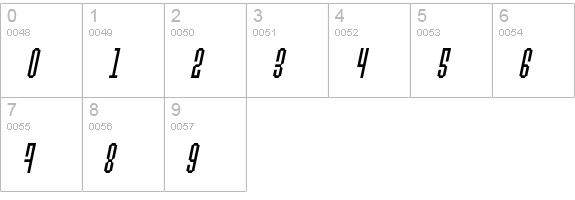
Permanent daylight Italic Font Details
Permanent daylight Italic is a distinctive, italic variant in the Permanent typeface family \xE2\x80\x94 well suited to design and typography projects.
Introducing Permanent Daylight Italic font, a captivating and stylish typeface that will illuminate your designs with its timeless elegance. This font effortlessly combines the beauty of traditional letterforms with a modern twist, making it perfect for a wide range of creative projects. With its slanted and italicized characters, Permanent Daylight Italic exudes a sense of sophistication and flair. Its sleek curves and delicate strokes create a harmonious balance, adding a touch of refinement to any design. Whether you're designing a logo, a website, or a printed piece, this font will bring a touch of class and professionalism to your work. What sets Permanent Daylight Italic apart is not only its striking aesthetics but also its versatility. It is equally suited for both headline and body text, giving you the freedom to experiment and create captivating compositions. Its legibility remains intact even at smaller sizes, ensuring that your message is always clear and impactful. The best part? Permanent Daylight Italic is available for free! You can easily download this exquisite font from FontsMarket.com, a trusted source for high-quality, professionally designed fonts. Say goodbye to expensive licensing fees and hello to the freedom of creativity. This font allows you to elevate your designs without breaking the bank. So why wait? Unlock the potential of your designs with Permanent Daylight Italic font. Its timeless beauty, versatility, and free availability make it an essential addition to any designer's toolkit. Download it now from FontsMarket.com and watch your creations come alive with a touch of elegance and sophistication.